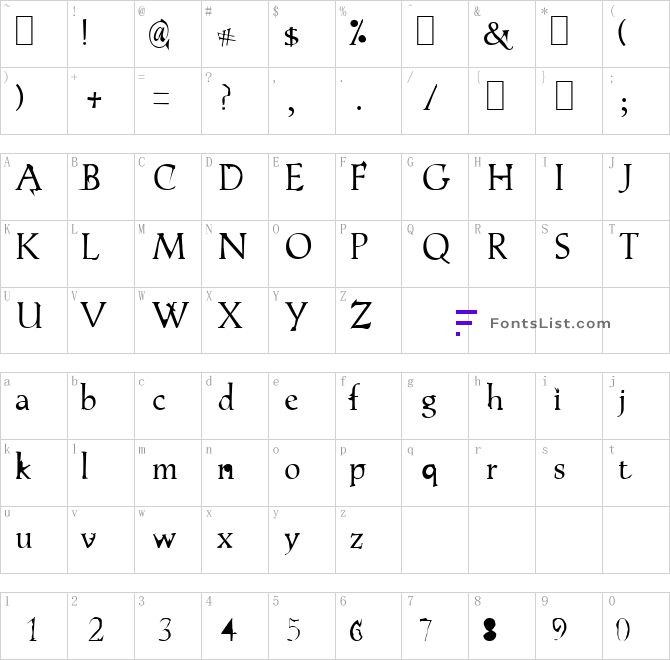
- Font Name:AlSabro
AlSabro.ttf is a very beautiful artistic font, AlSabro.ttf is widely used in the design and printing of various books and pictures,AlSabro.ttf has a strong visual impact,AlSabro.ttf is a commonly used font in newspapers, magazines and books, and is used in posters, e-commerce Poster design, store design, logo design, font design and other fields.AlSabro.